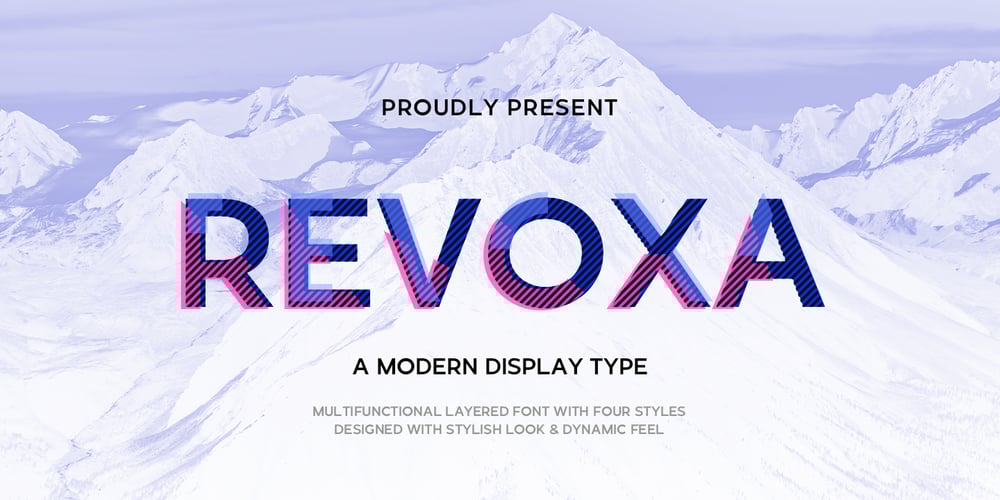
Revoxa
Revoxa font
Revoxa Font Family was designed by Abdul Malik Wisnu and published by Almarkha Type. Revoxa contains 4 styles and family package options. Revoxa – Modern Sans, Display Sans made specifically developed for contemporary design styles, made with three styles; Regular- Cut – line.These styles have been carefully designed to coat each other, creating an alternative third style. This feature allows you to adjust opacity and blending modes and different color settings, giving various possible results.very good for combining your design work with a clear line and a circle with several different weights that are very comfortable in the design area you are easy to read and as a title on a blog or magazine page